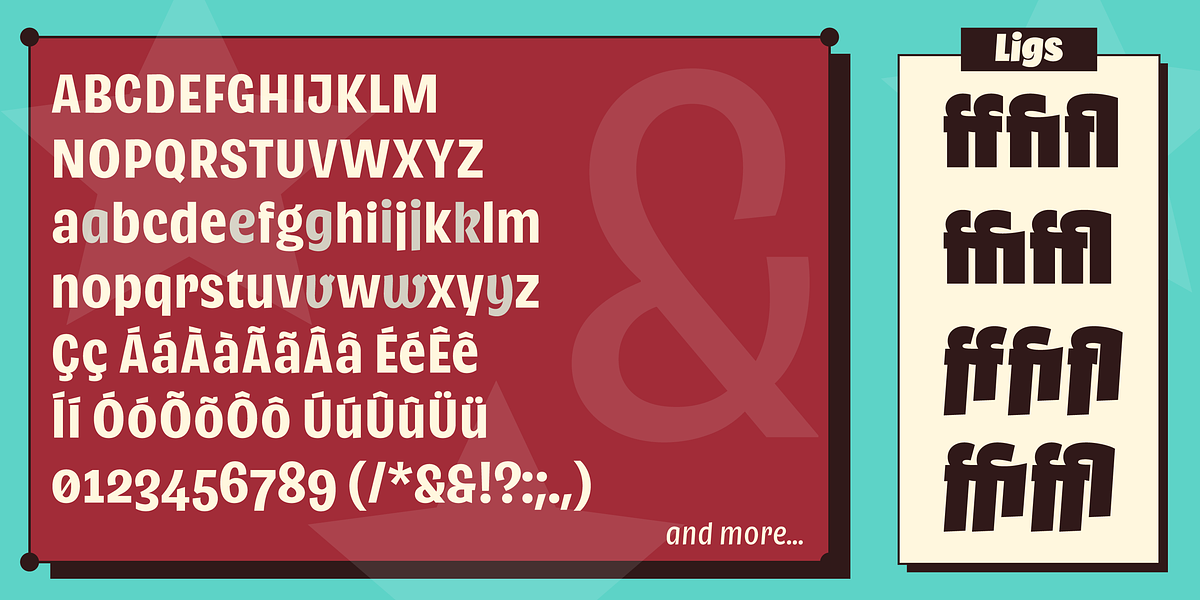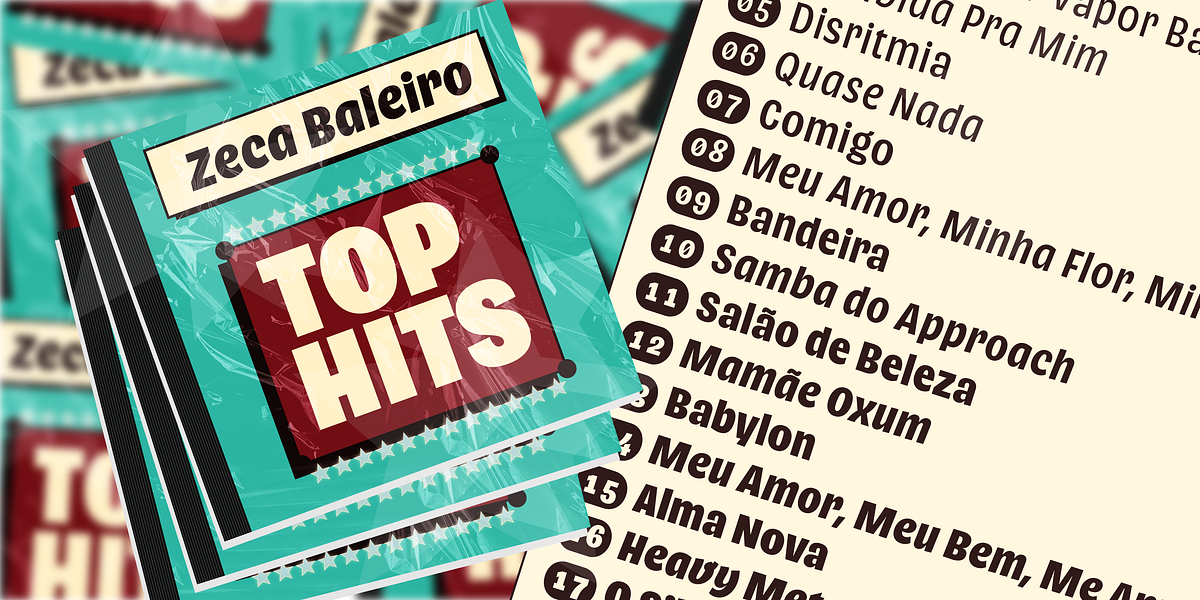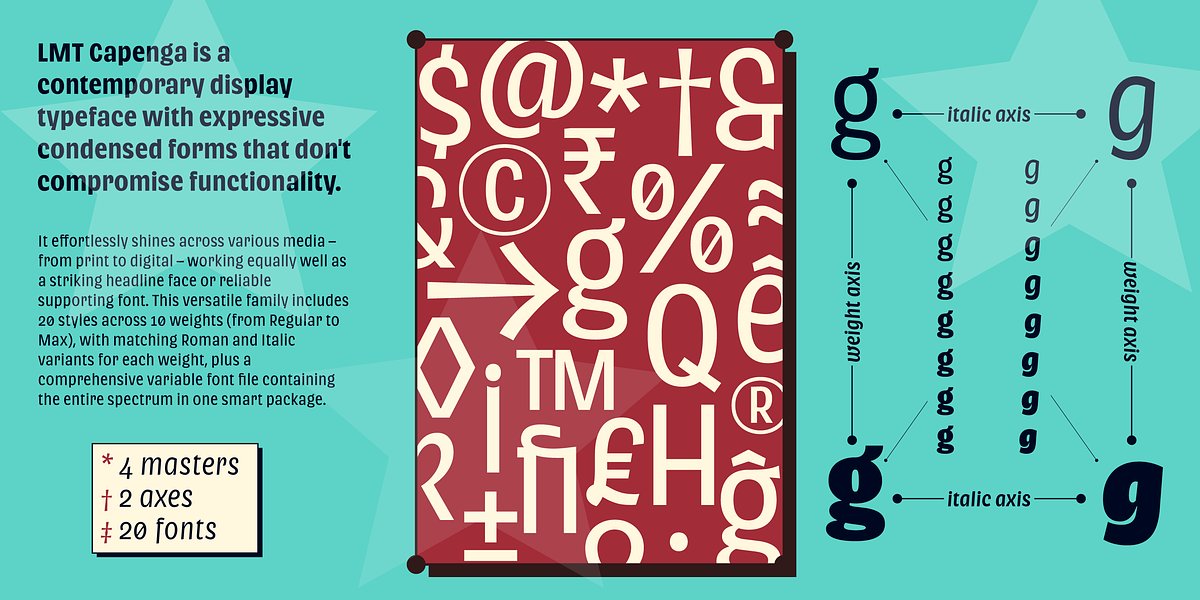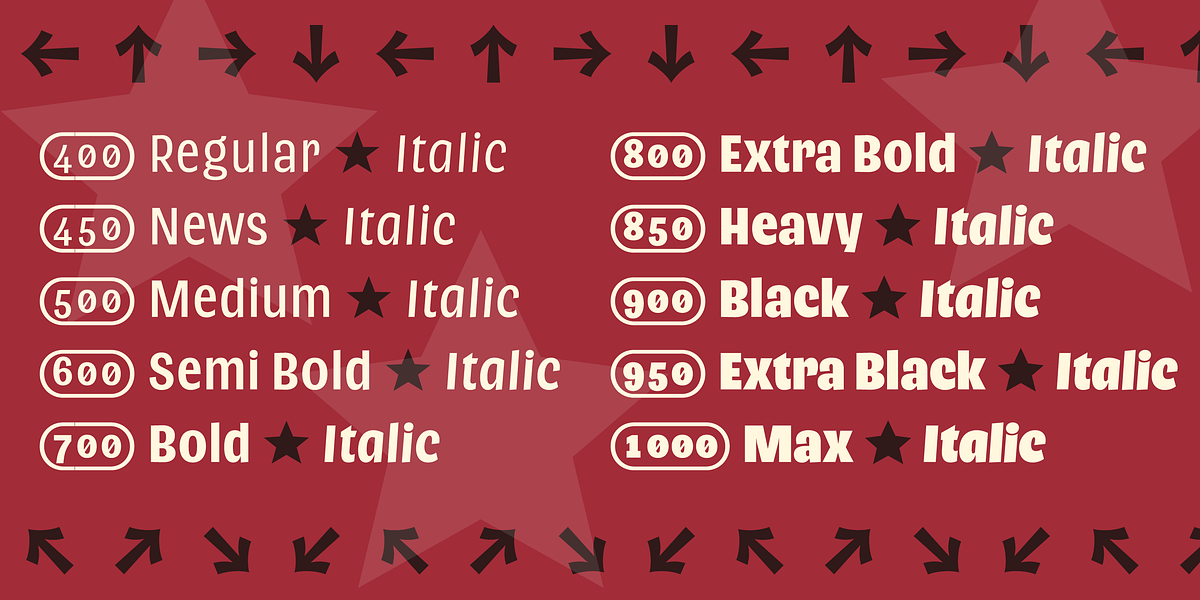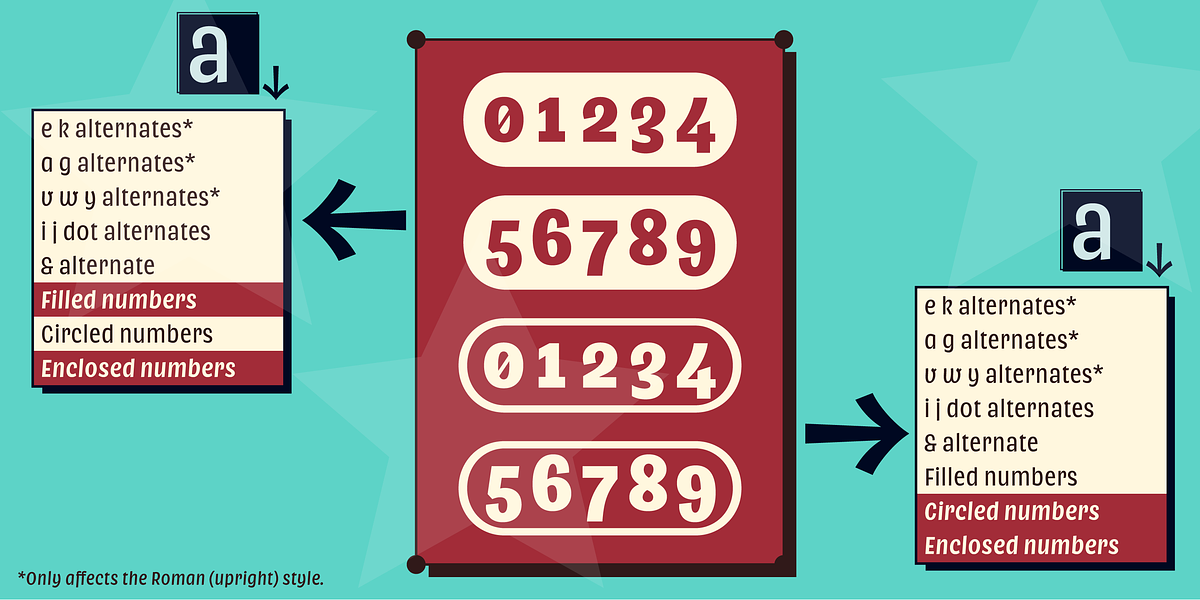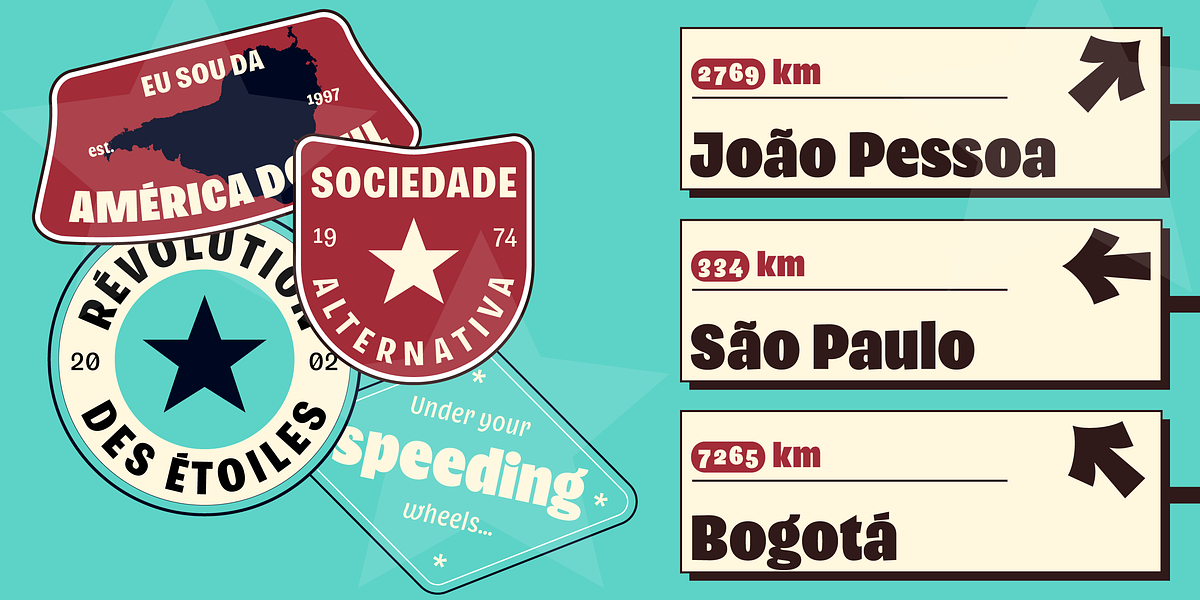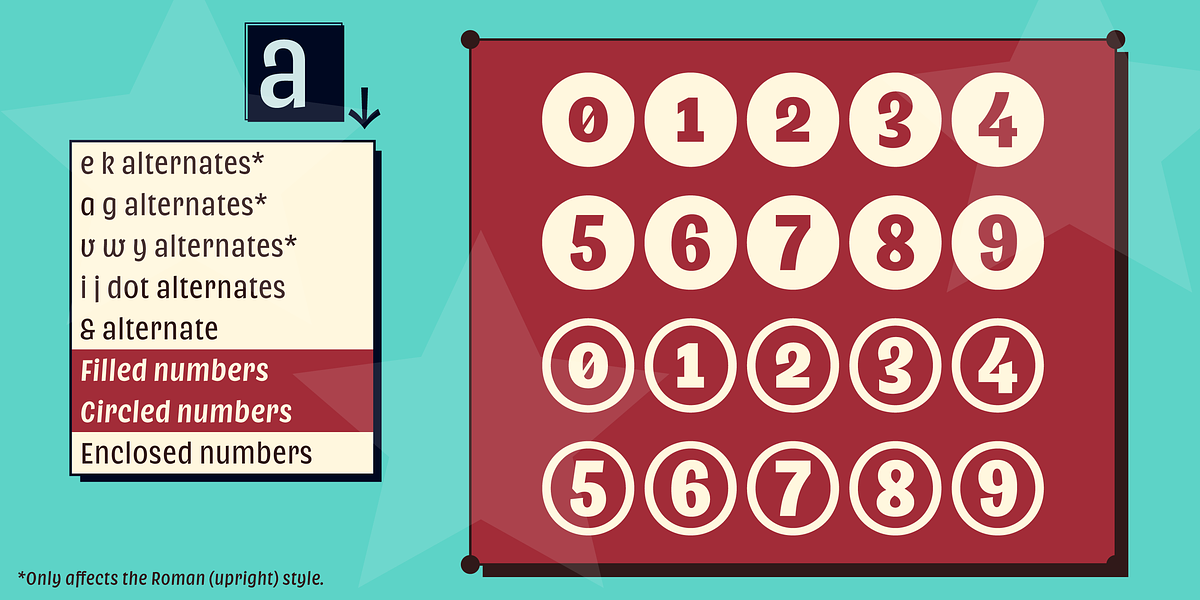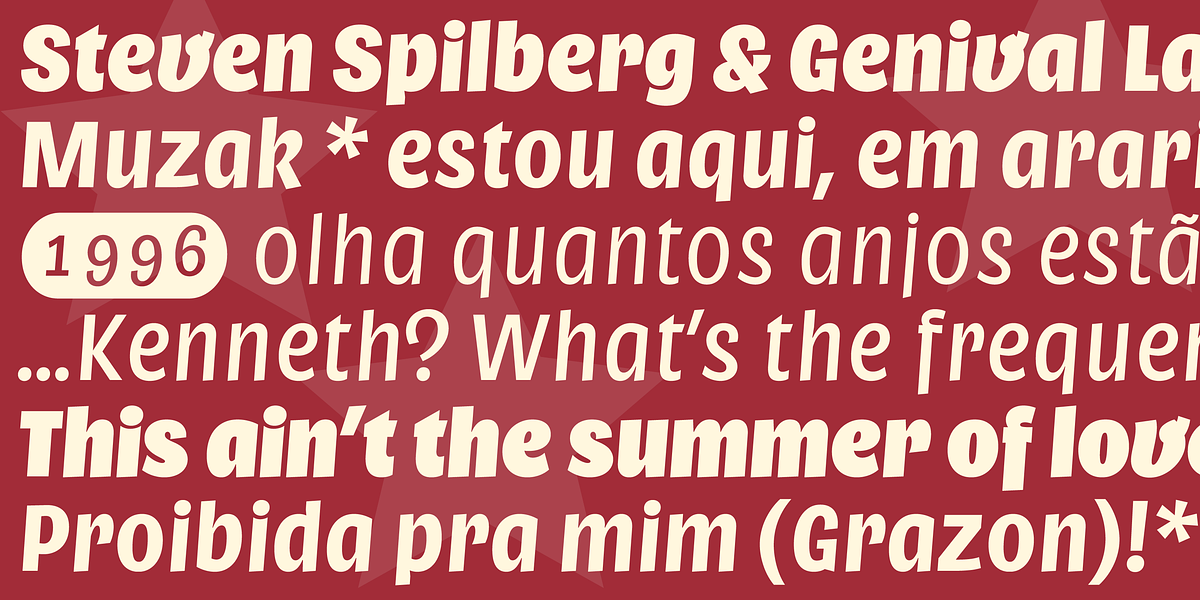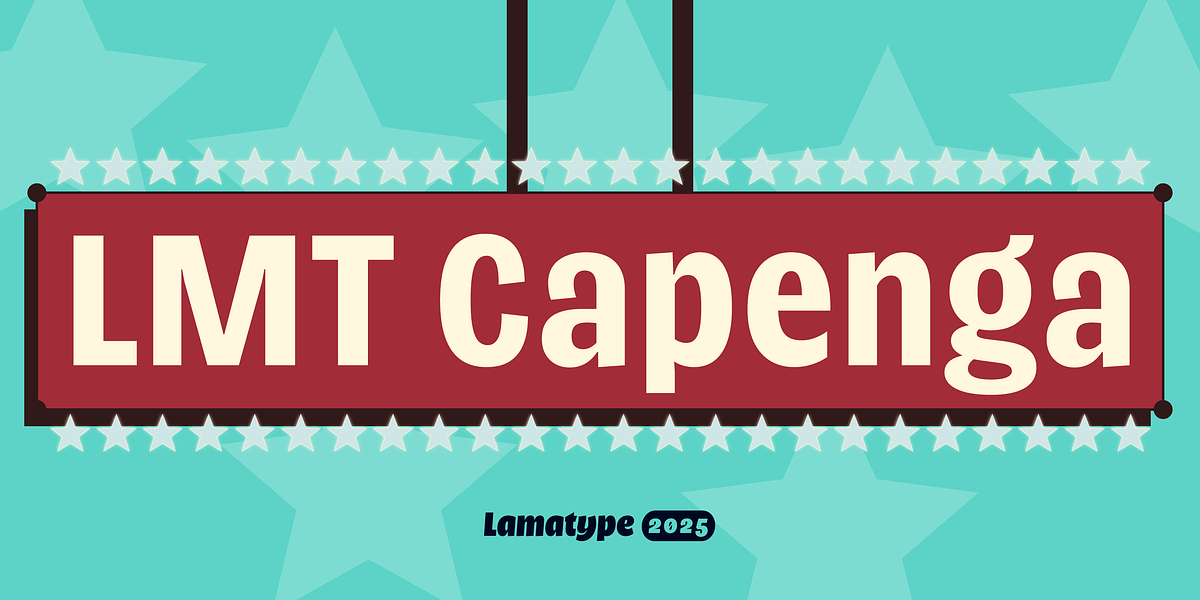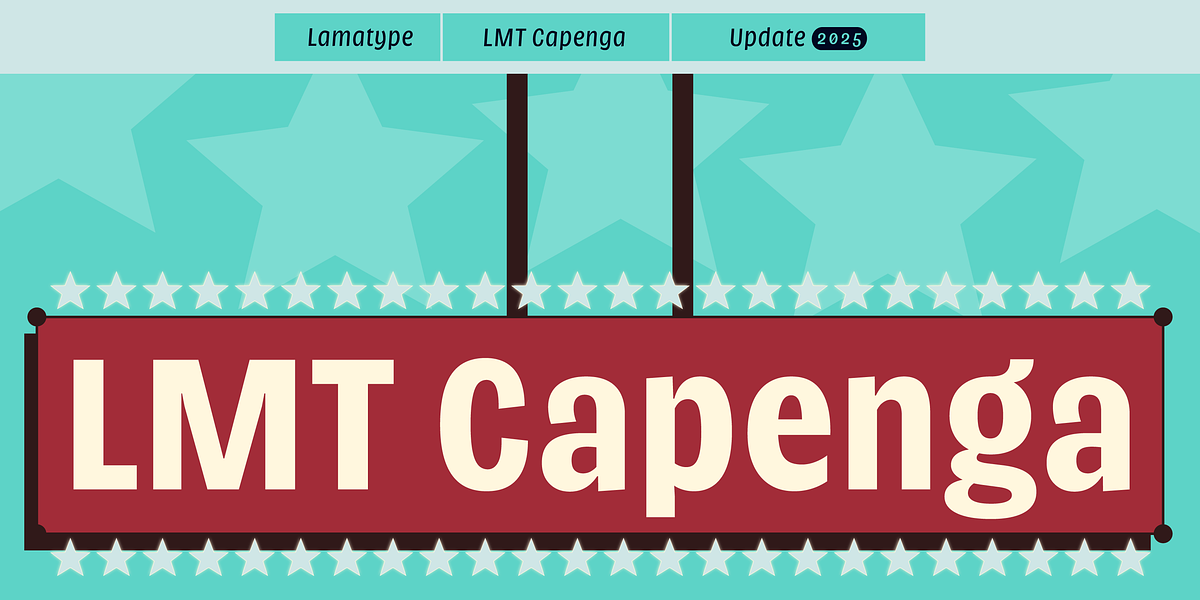
LMT Capenga
LMT Capenga is a contemporary type family with expressive condensed shapes that don't compromise functionality. It can be used across various mediums, from print to web, serving as both a headline and supporting font, making it highly versatile.
LMT Capenga comes in 20 styles, ranging from Regular (400) to Max (1000) in 10 weights, each available in Roman and Italic forms, along with a variable alternative comprising all styles in a single font file. You can also take advantage of stylistic alternatives that can transform the Roman style into "straight Italics," along with various numeral options to further enhance your projects.